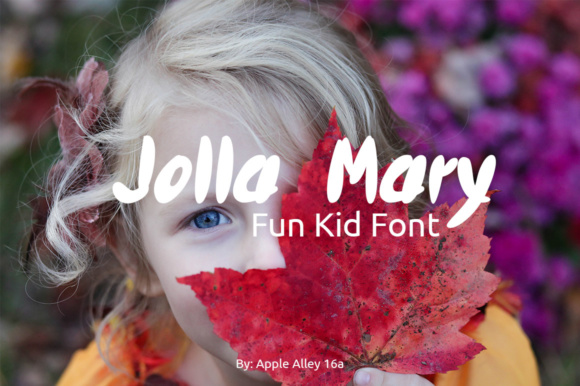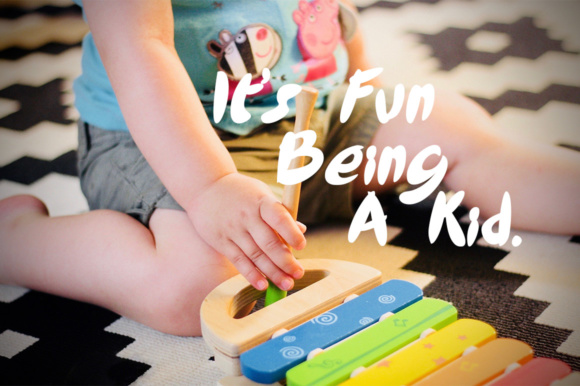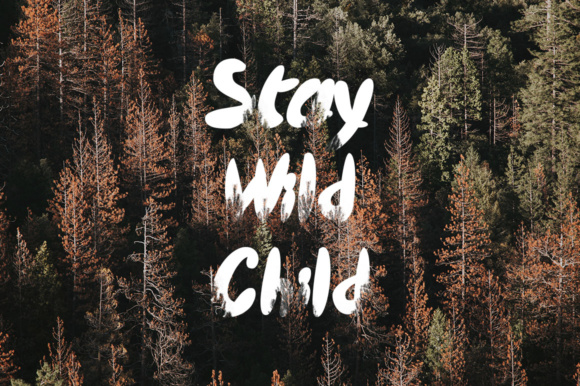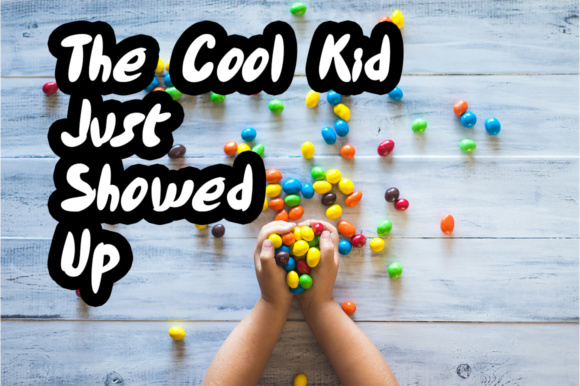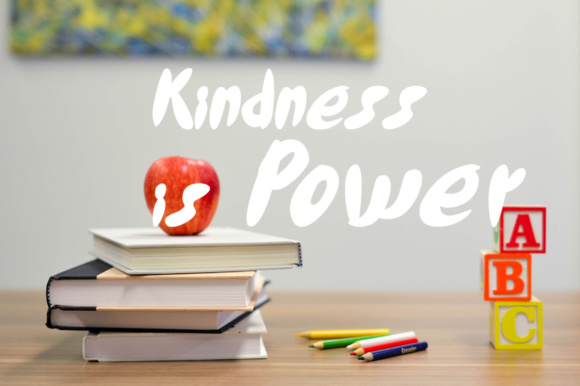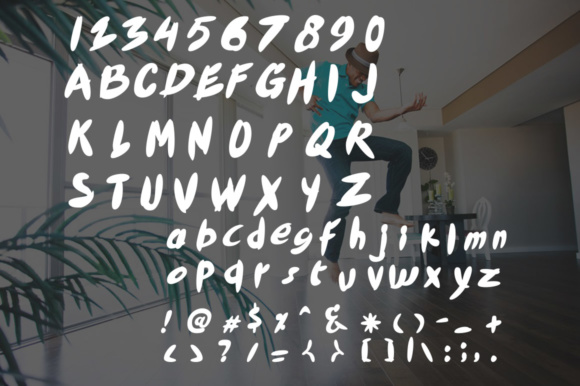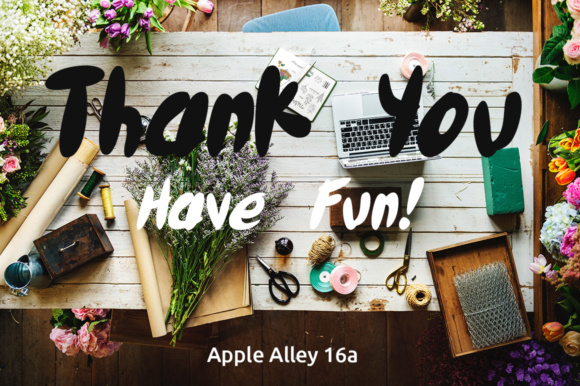
Jolla Mary Font
About Jolla Mary Font
Jolla Mary is a fun and bubbly font, crafted specifically for use in children’s designs! This font looks stellar as a headline to print projects and reads well so you can use in projects for children of all ages!